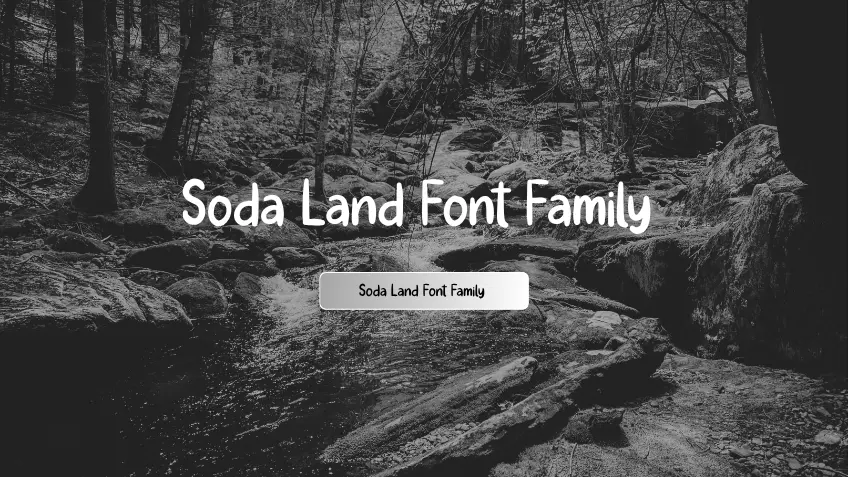
Soda Land Regular
Soda Land Regular Font
The font Soda Land Regular, designed by Hilmius Akbar, falls under the Display, Handwritten category & Soda Land font family. Its smooth, flowing letterforms make it a versatile choice for projects that require both elegance and readability. Soda Land is particularly well-suited for Birthday Invitation, Headlines, Event Posters, Blog headers, Event flyers, Decorative Titles, Logos, Display, Event Stationery, Christmas Decor and Digital Art. With its balance of simplicity and decorative appeal, this font brings a polished touch to both personal and professional designs.